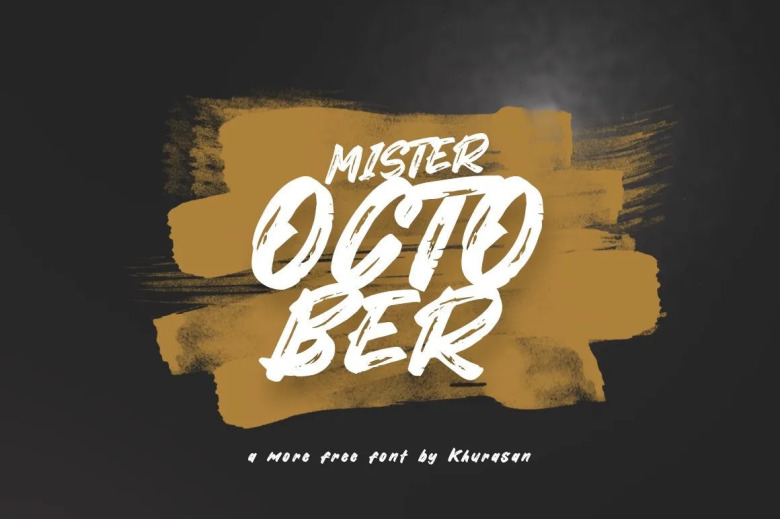
Mister October Font
Mister October is a modern and fancy brush script font perfect for posters, logos, magazines, book covers, banners, and many more! Get this amazing freebie, and use it to create lovely designs!
Mister October Brush Script Font